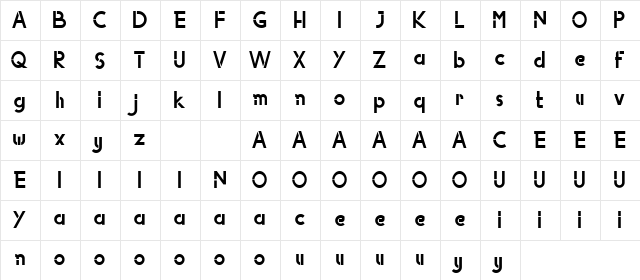
Ghostlike Demo Regular
| Foundry | Edric Studio |
| Designer | Ega & Sarah Suci P |
Design Context for Ghostlike Demo Typeface
Ghostlike Demo offers clean, dependable letterforms without strong stylistic allegiance, making it a practical choice for designers who need flexibility.